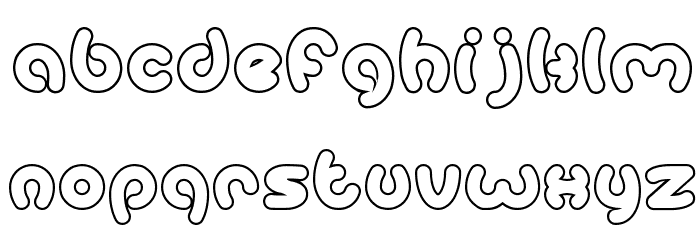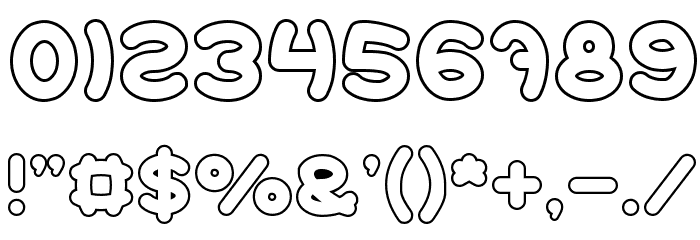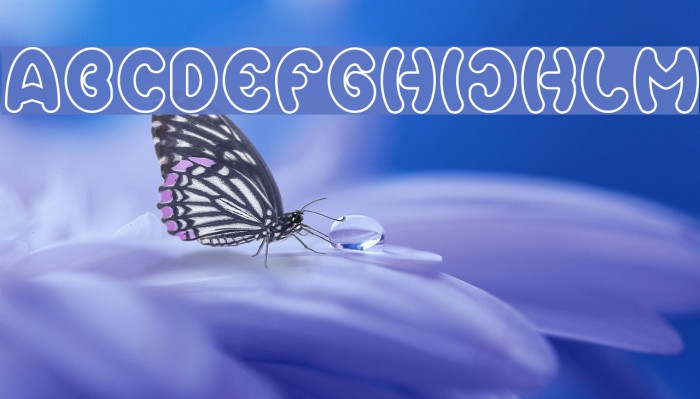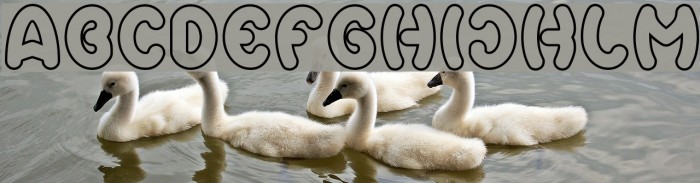
Earth Heart-Hollow Font
This playful and whimsical font features hollow, rounded characters with a consistent stroke width, giving it a bubbly and friendly appearance. The uppercase and lowercase letters maintain a uniform style, with smooth curves and a slightly inflated look that adds to its charm. Numbers and special characters follow the same design principles, ensuring a cohesive and harmonious set. The font's hollow nature allows for creative use of color and background, making it versatile for various design applications.
A playful, hollow, rounded font with a bubbly and friendly style.
- Proposed Projects: Ideal for children's books, playful branding, greeting cards, and creative posters.
- Overall Style: Playful
- Use Case: Logos, Posters, Creative projects